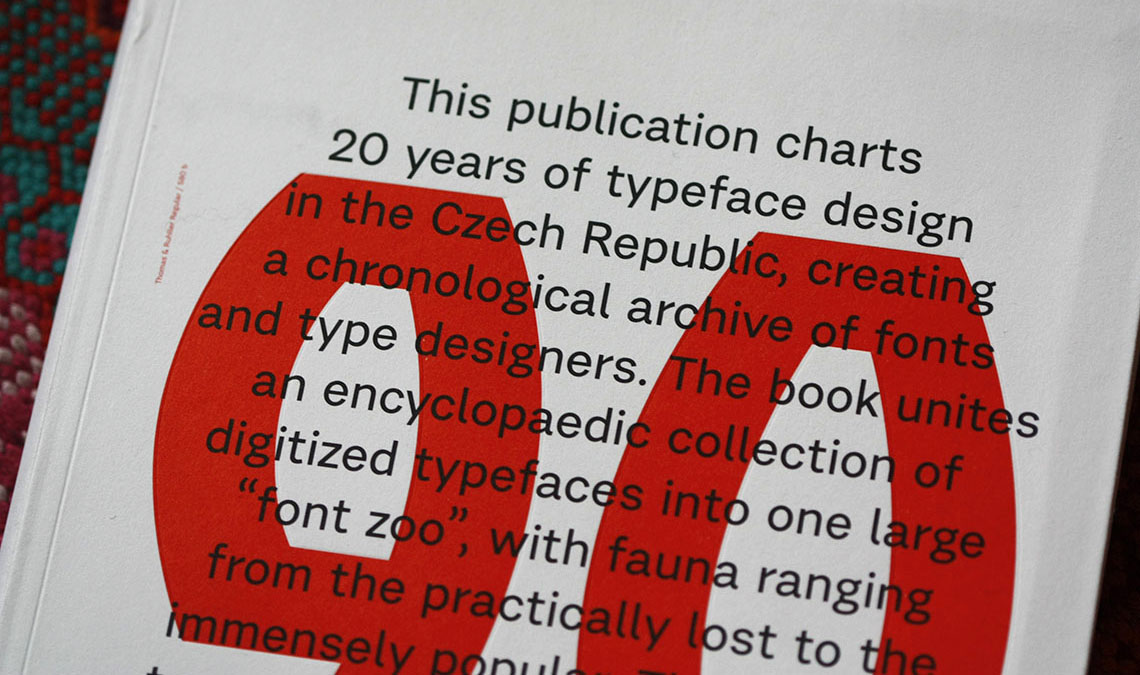
Typo 9010
Typo 9010 unites an complete collection of Czech typefaces starting from 1990, from the beginning of digital typefaces,
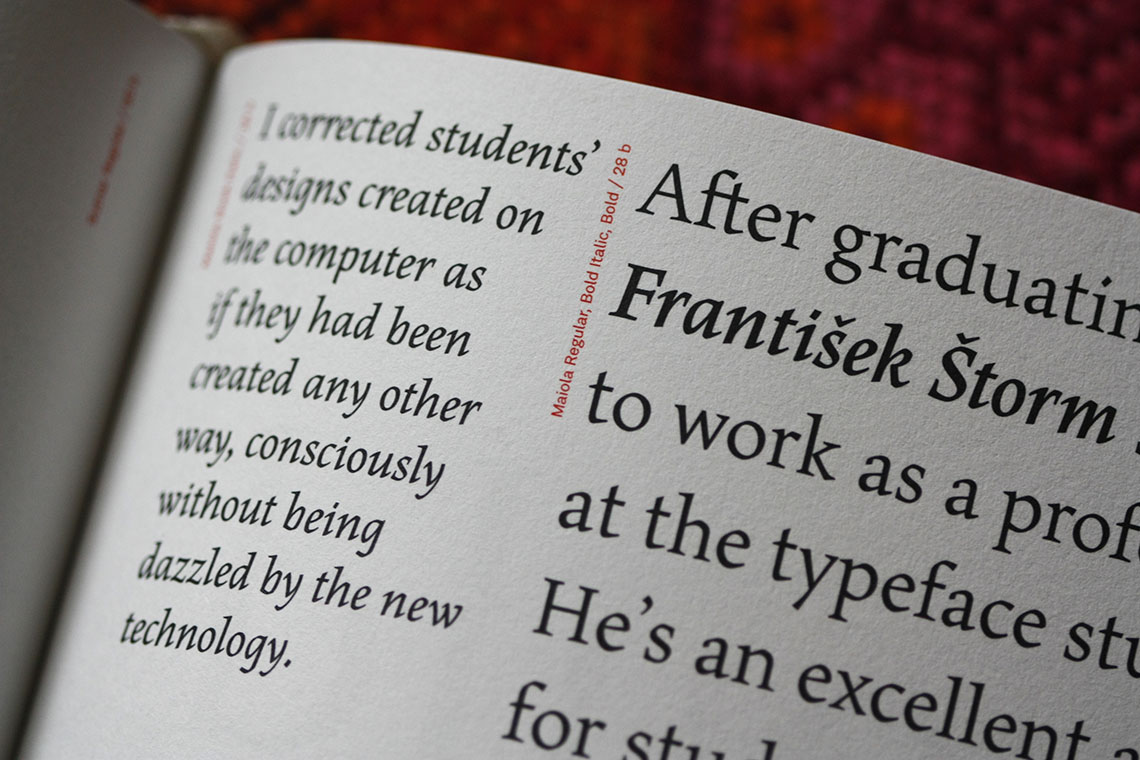
Typo 9010 is an essential book that compiles the history of Czech digitised typeface between 1990 and 2010, featuring 399 different typefaces and the correspondent styles, including Veronika Burian’s award-winning Maiola. The publication also includes eight short essays by Czech and international typographers, such as Filip Blazek and Veronika Burian, describing the current and the past atmosphere of Czech type design.